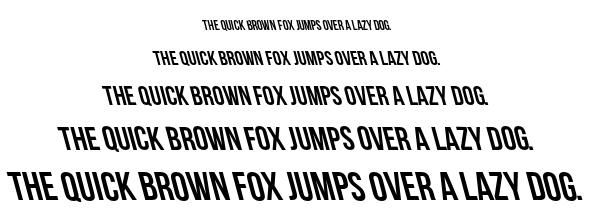
BEBAS-TAM font
It’s a schoolwork, we have to make a font that based on another freefont. I’ve choosen the Bebas font, and i transformed a bit and finally i made an italic font. It’s called “Bebas-tam”, its a joke because it means: ‘I’m drunk’ in hungarian and the italic font is symbolized the status of drunk people too.